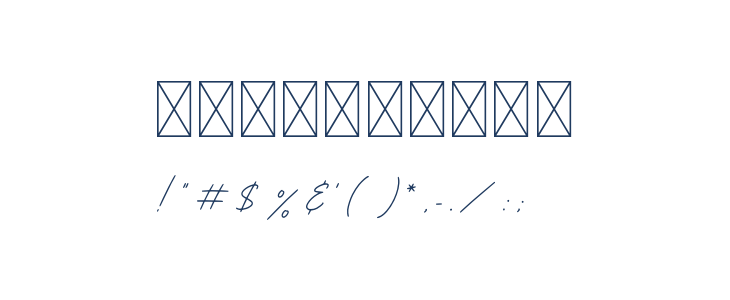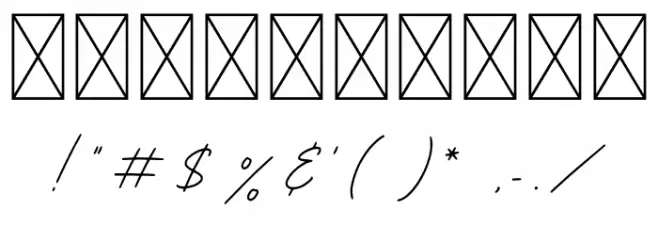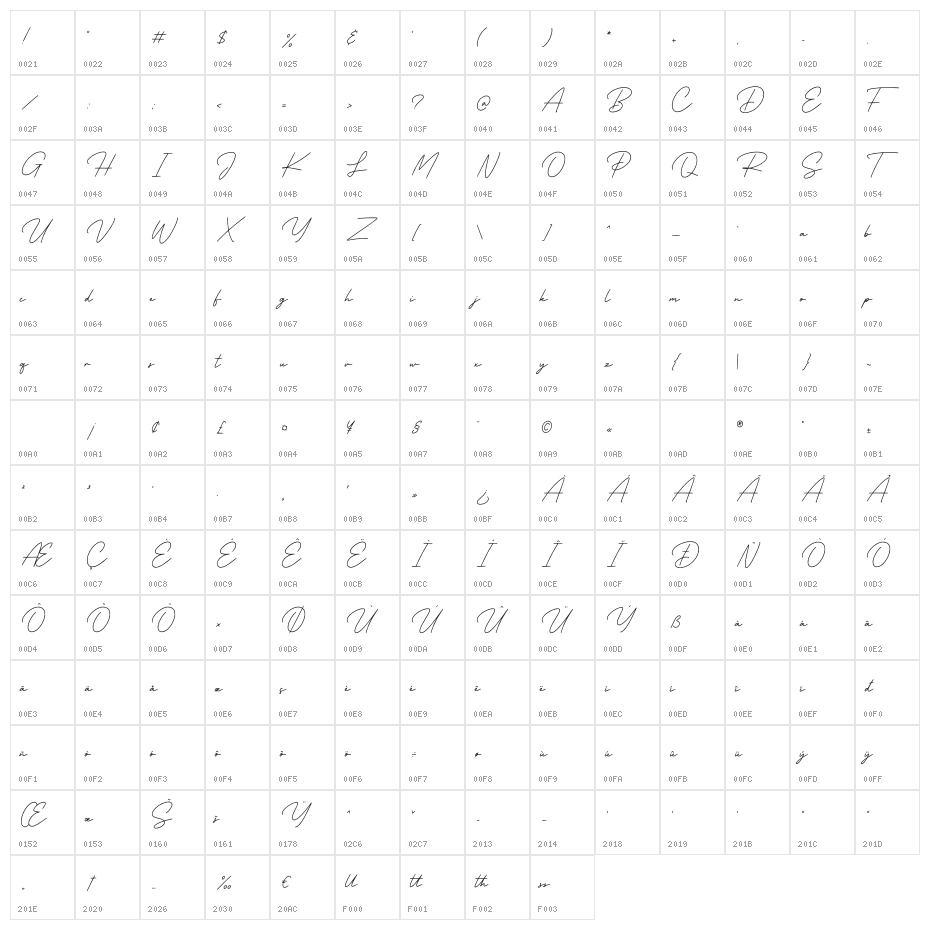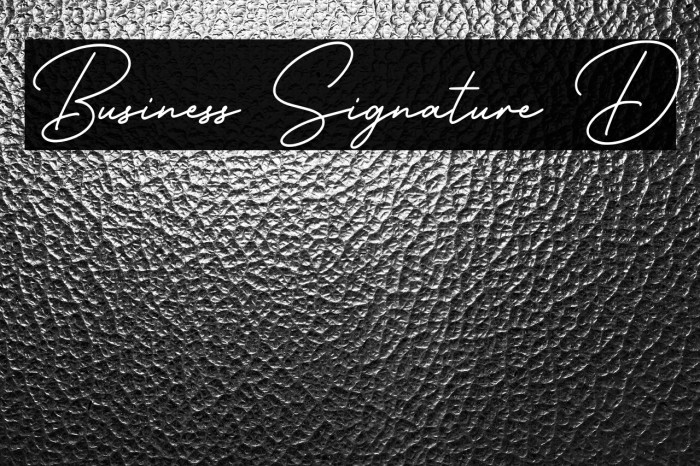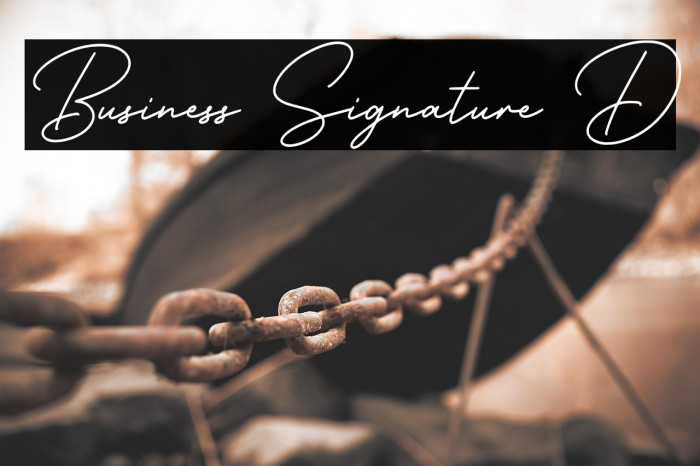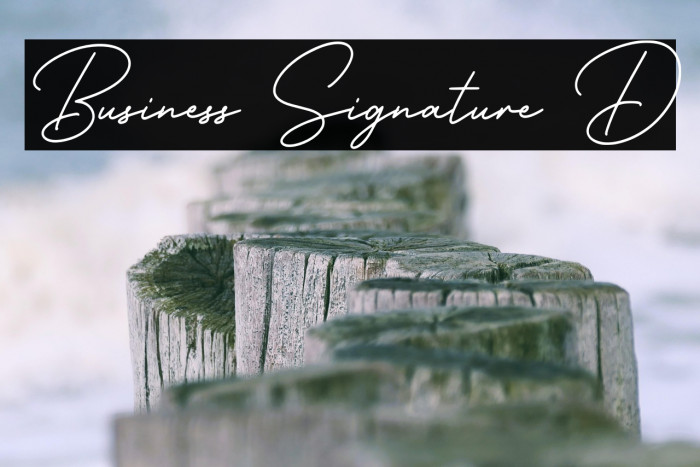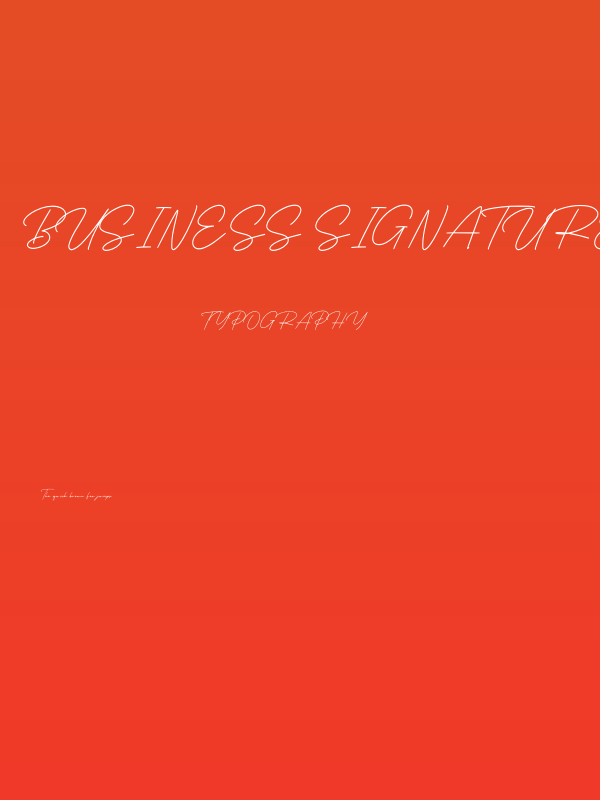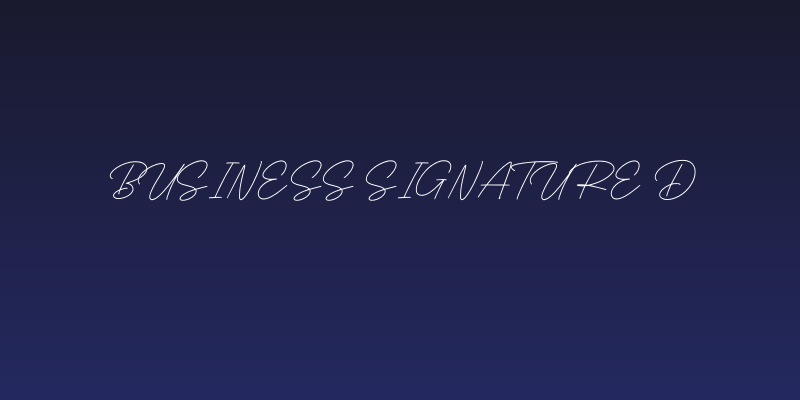
Business Signature D Font
Business Signature D Description
This font features a sophisticated and elegant script style, characterized by its fluid, cursive letterforms that mimic the natural flow of handwriting. The uppercase letters are tall and graceful, with sweeping curves and delicate loops, while the lowercase letters maintain a consistent, flowing rhythm. The overall appearance is refined and stylish, making it suitable for formal and upscale design projects. The font's thin strokes and subtle variations in line thickness add to its charm, providing a sense of movement and dynamism. It is ideal for creating a personal touch in branding, invitations, and other creative applications.